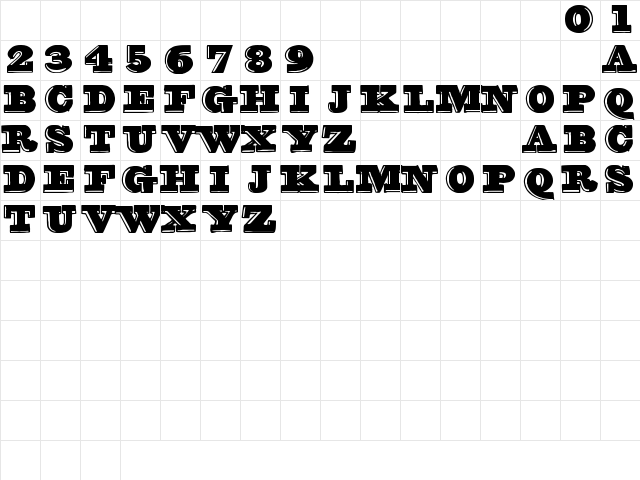
groovy font Regular
Designer: kaiser zhar khan
Design Context for groovy font
groovy font is a composed and adaptable typeface that performs quietly and consistently across a wide range of design contexts.